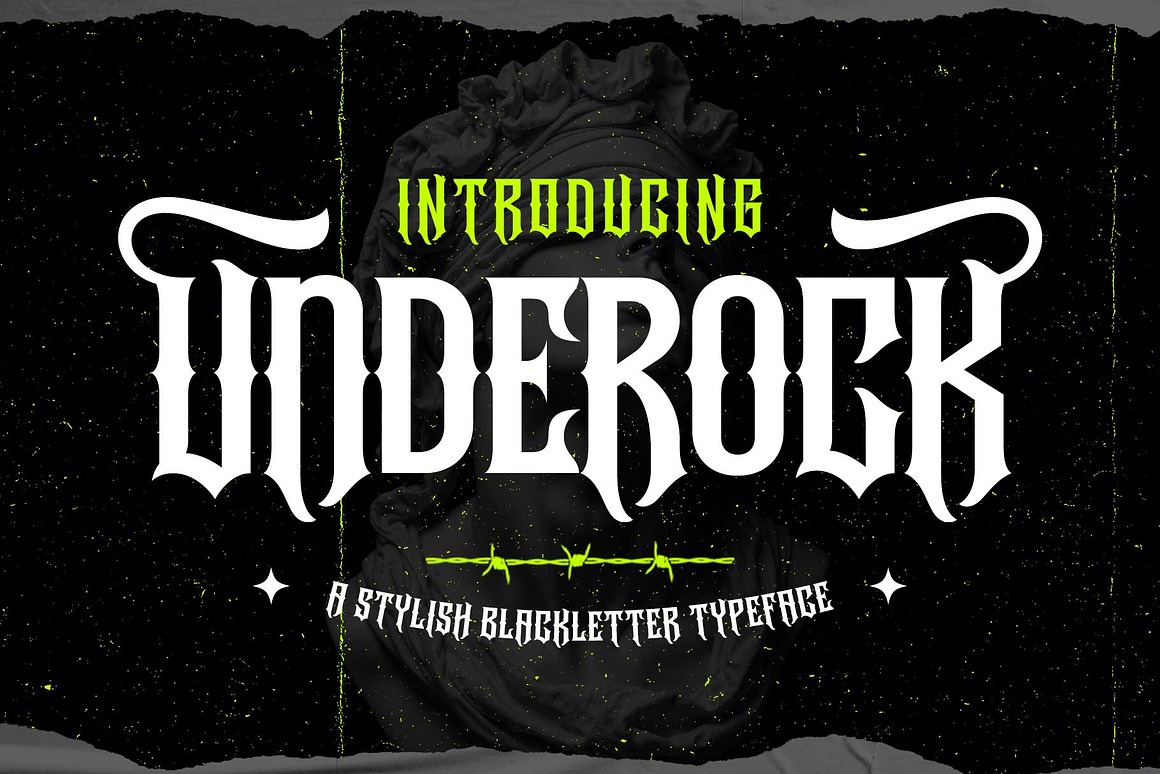
Underock Font
About Underock
Underock is a bold display typeface that merges the timeless character of blackletter style with the raw intensity of hardcore typography. Inspired by underground culture, and Gothic lettering traditions, it features sharp letterforms, dramatic curves, and strong proportions that create a powerful and rebellious visual presence.